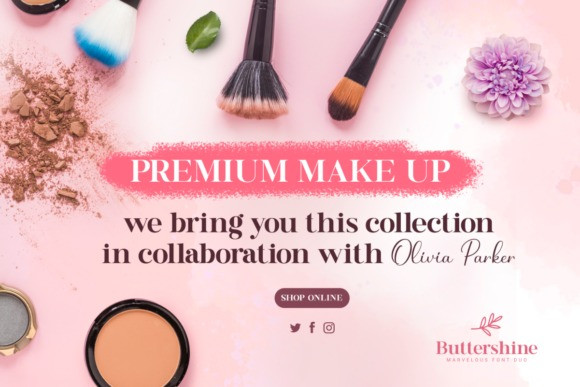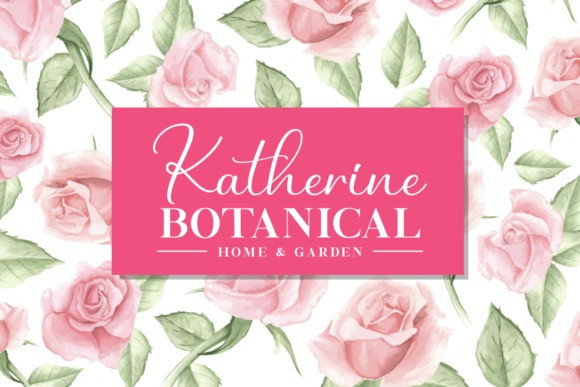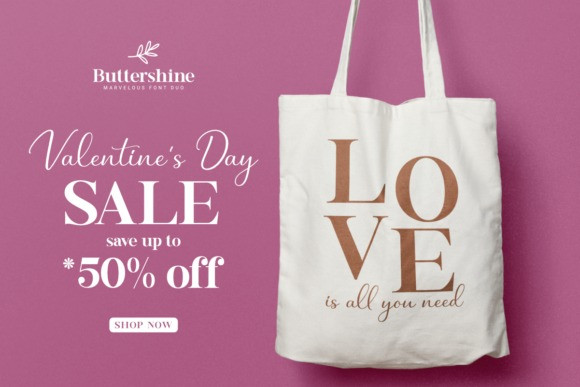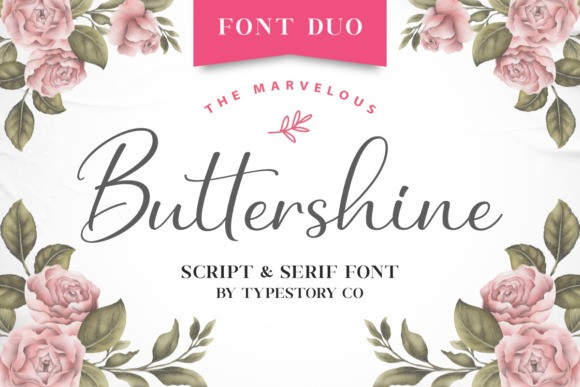
Buttershine Font is a combination of a serif typeface & beauty handwritten script typeface based on the expression of real handwriting. It looks beautiful on a variety of designs requiring a personalized style, such as wedding invitations, thank you cards, weddings, greeting cards, logos and so on.
BUTTERSHINE SCRIPT
BUTTERSHINE SERIF